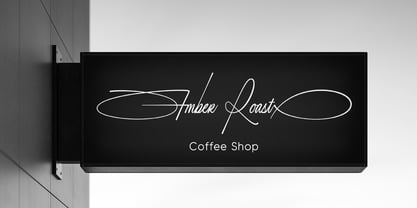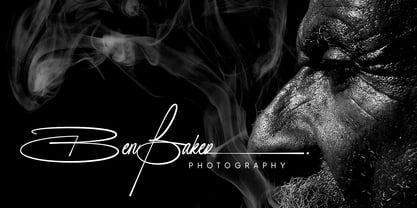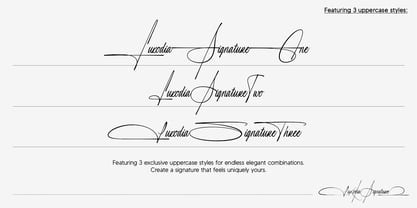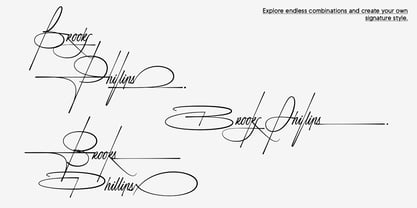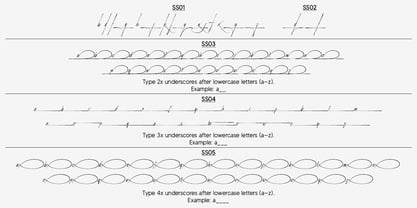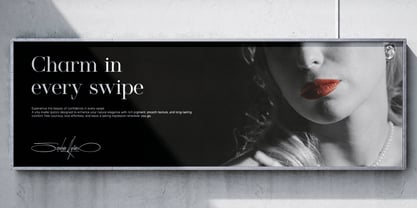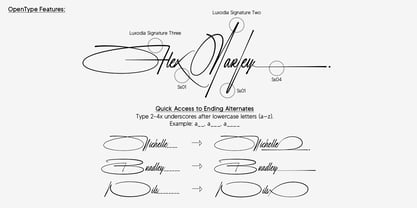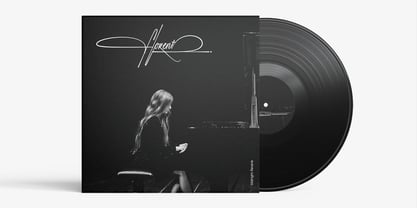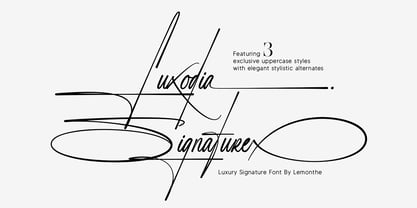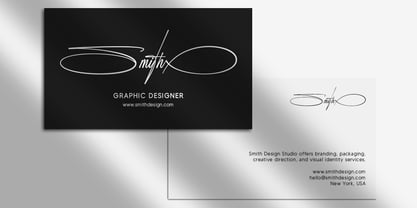
Luxodia Signature
The Luxodia Signature Font Family was designed by Dwi Ahidian and published by Lemonthe. Luxodia Signature contains 3 styles and family package options. More about this family
Luxodia Signature is a luxury signature font designed to bring an elegant and distinctive touch to your creative projects. With its flowing strokes, refined curves, and stylish character forms, this font is perfect for branding, logos, business card, packaging, social media, photography, fashion, and other modern luxury visuals. This font collection features 3 different uppercase styles, each offering unique character designs that allow you to combine various styles and create elegant signature looks.
To give you more creative freedom, Luxodia Signature also includes elegant stylistic alternates that can be mixed and matched effortlessly. You can combine uppercase variations, alternate characters, and ending styles to create custom lettering compositions that feel more natural, expressive, and visually refined. Whether you prefer a clean signature look or a more decorative and artistic style, Luxodia Signature makes it easy to create beautiful typography effortlessly.
Quick Access to Ending Alternates:
SS03: Type 2x underscores after lowercase letters (a–z).
Example: a__
SS04: Type 3x underscores after lowercase letters (a–z).
Example: a___
SS05: Type 4x underscores after lowercase letters (a–z).
Example: a____